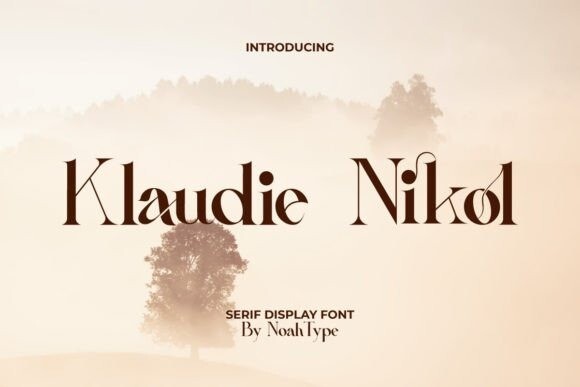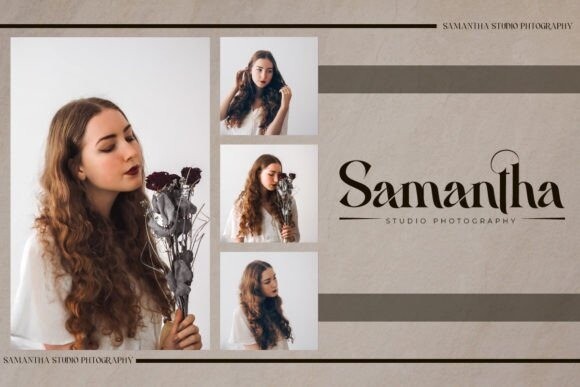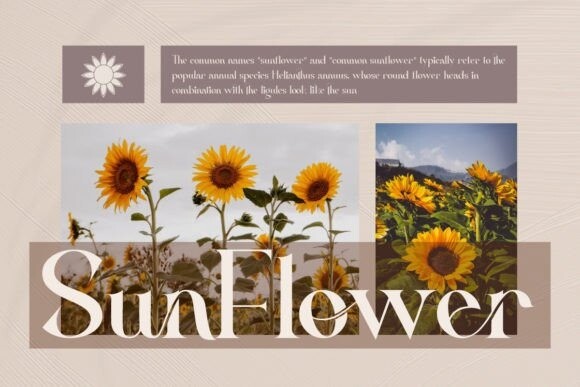
Klaudie Nikol Font
Klaudie Nikol Font is a sleek and sophisticated serif font, perfect for high-end fashion and luxury branding. Its thin and elegant lines are balanced with just the right amount of weight, giving it a modern and refined look. The font features distinctive uppercase letters with unique angles and curves, making it stand out from other serif fonts. Klaudie Nikol exudes confidence and class, making it the perfect choice for fashion-forward designs.